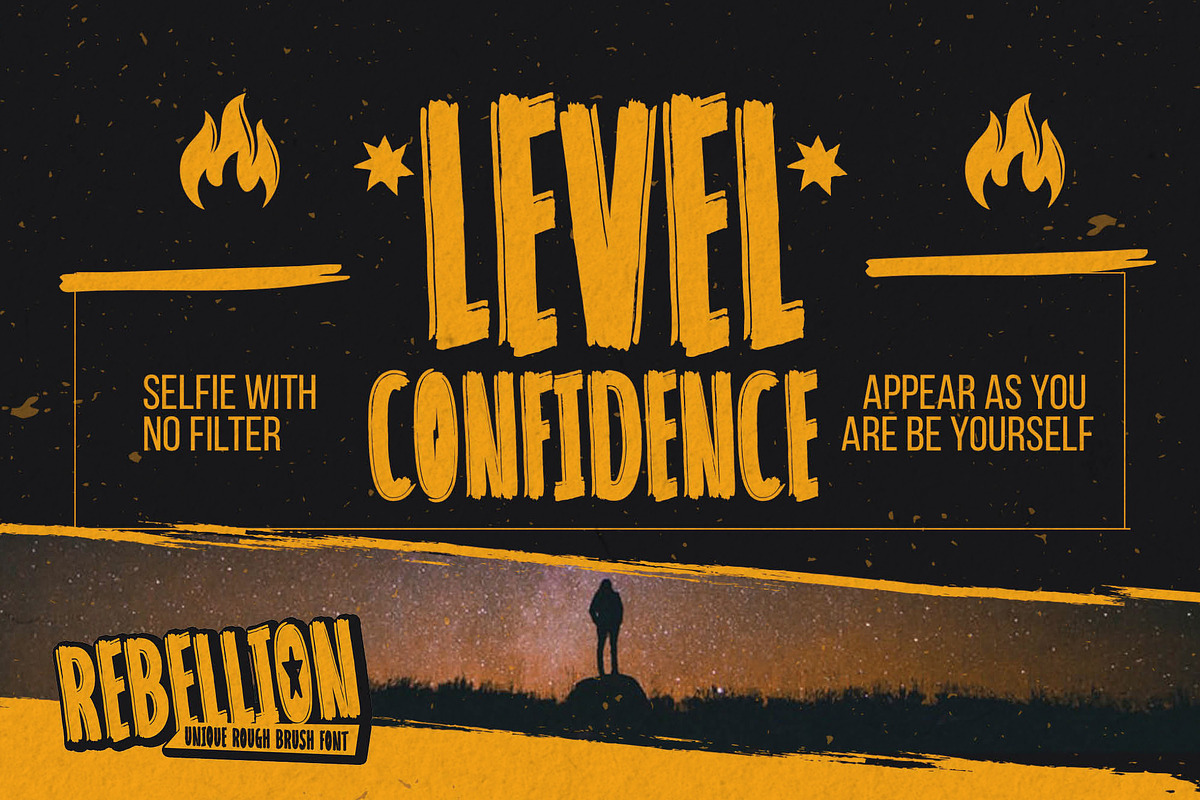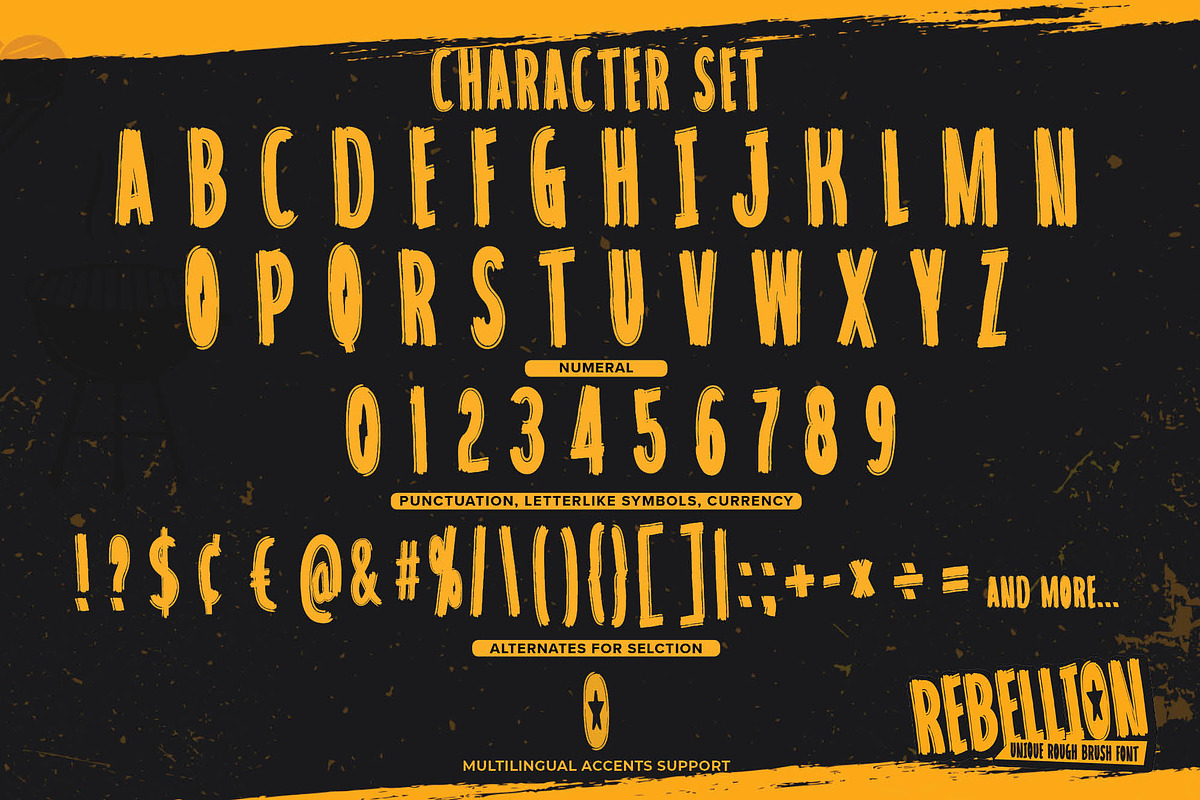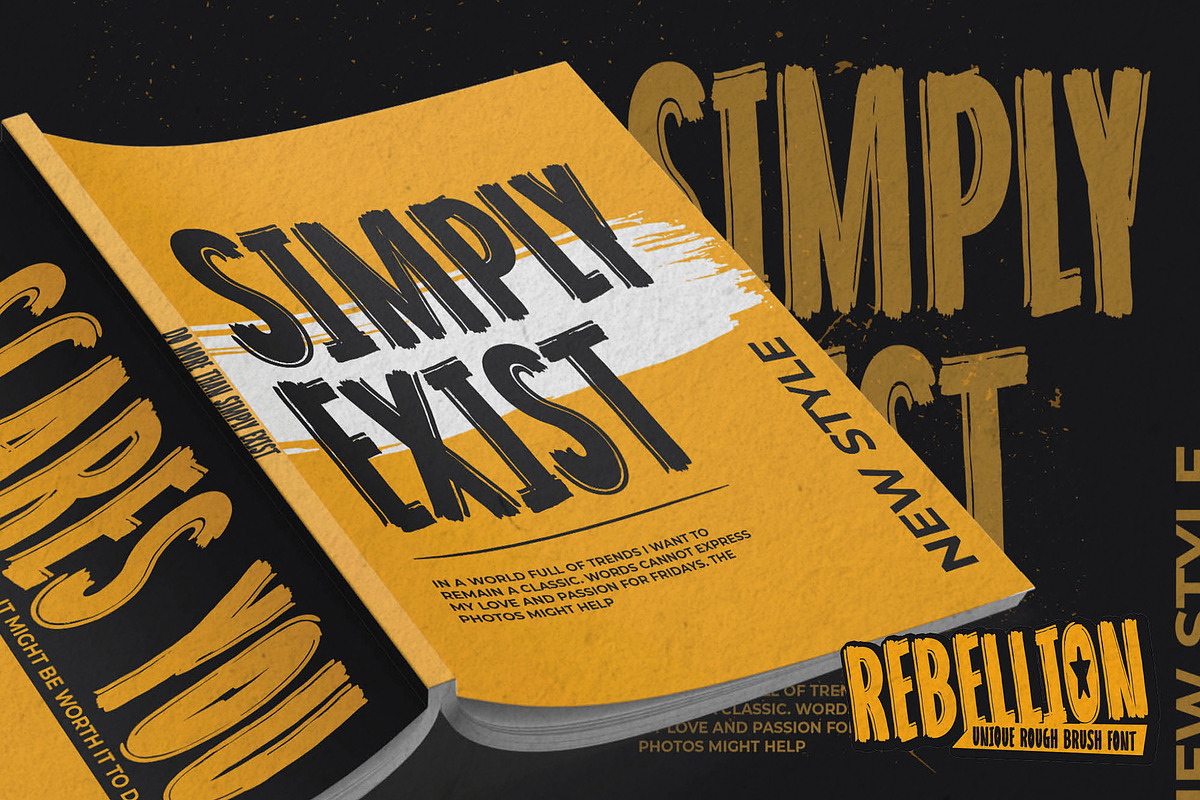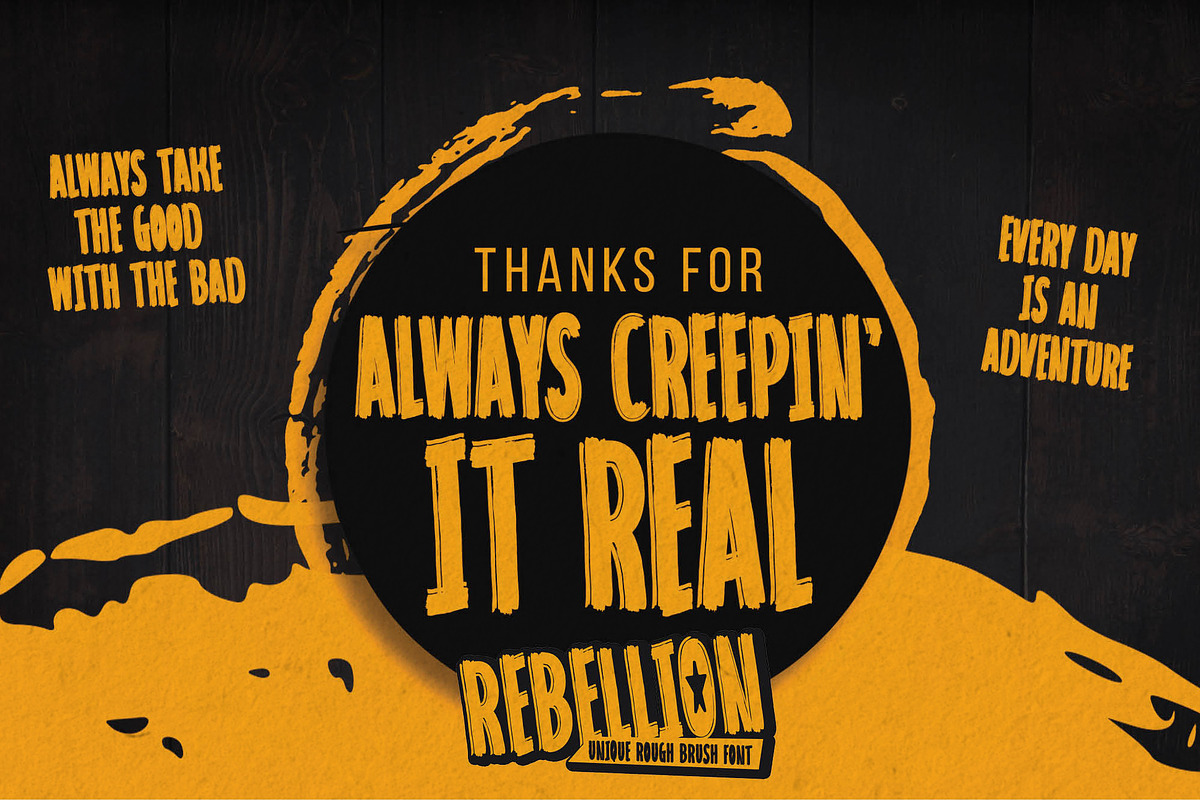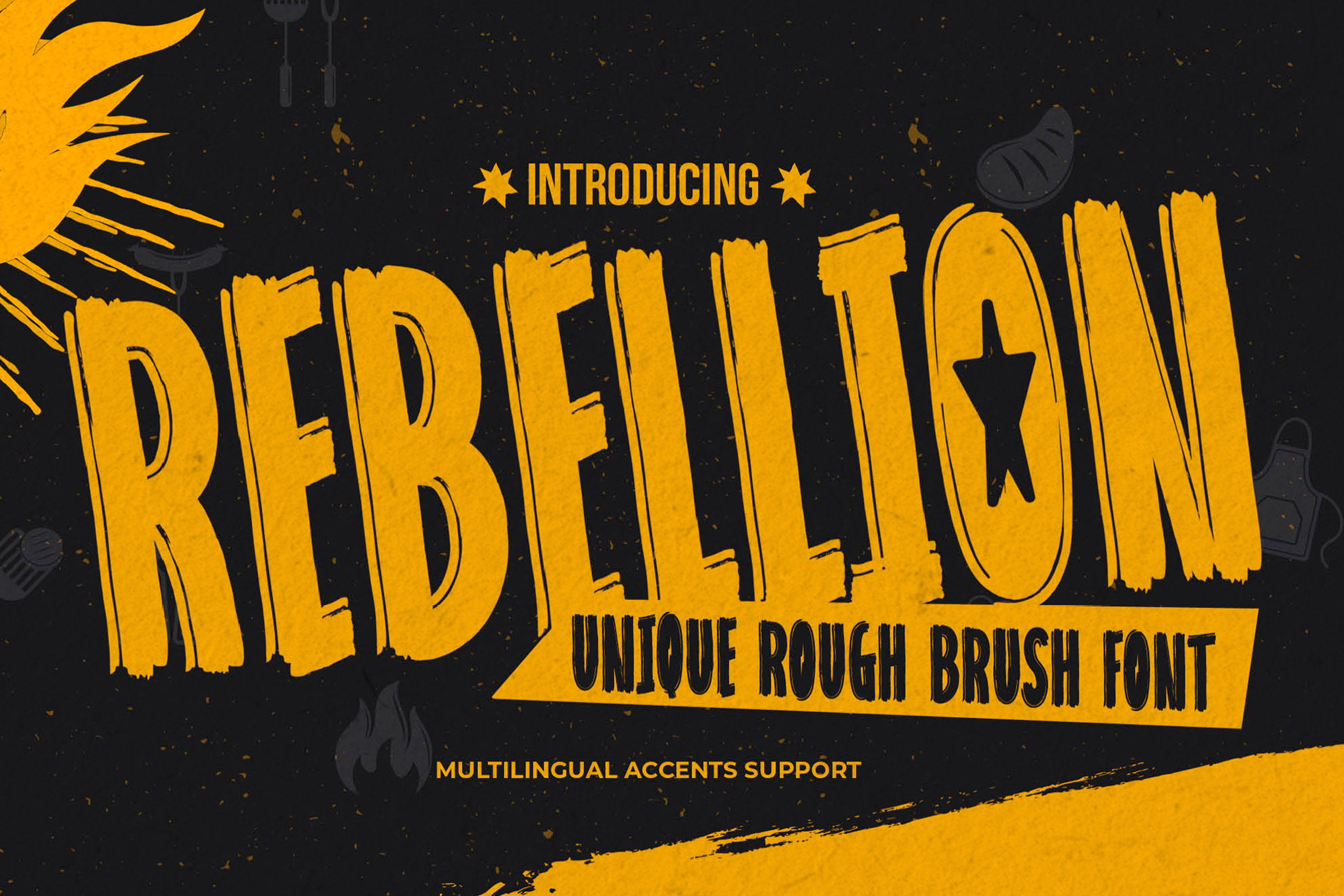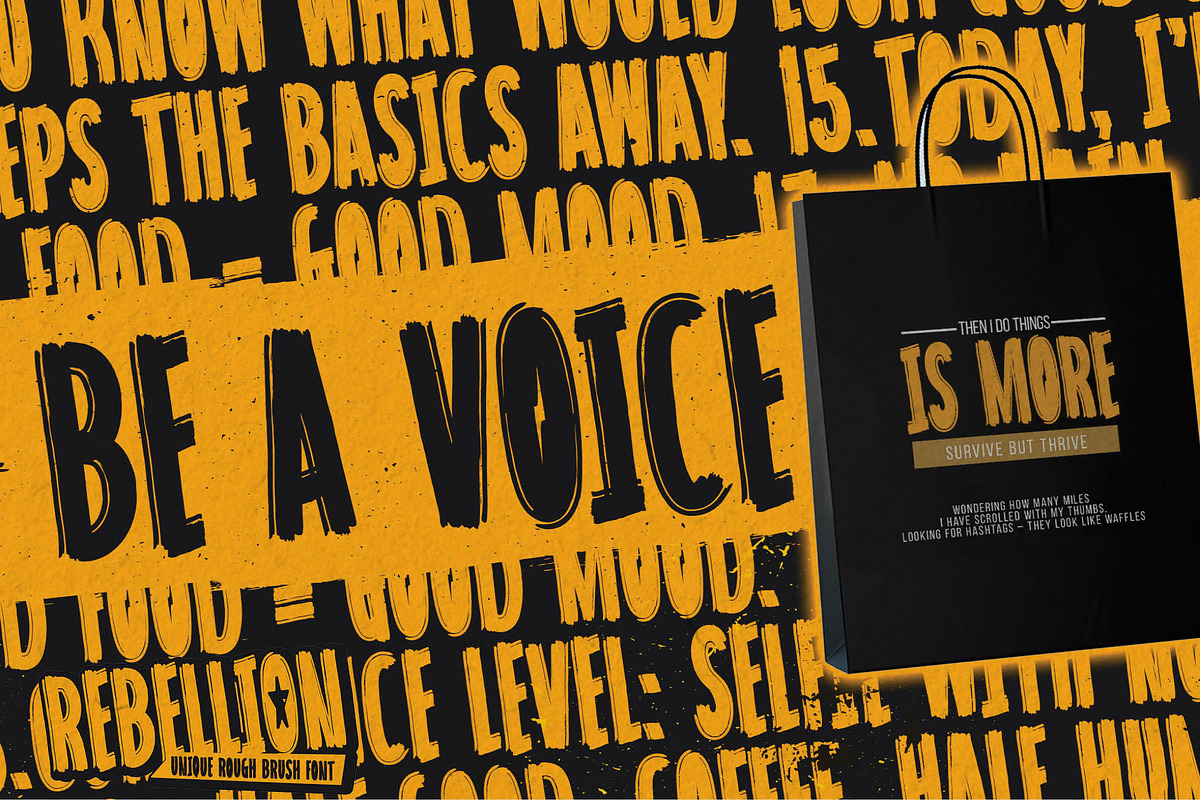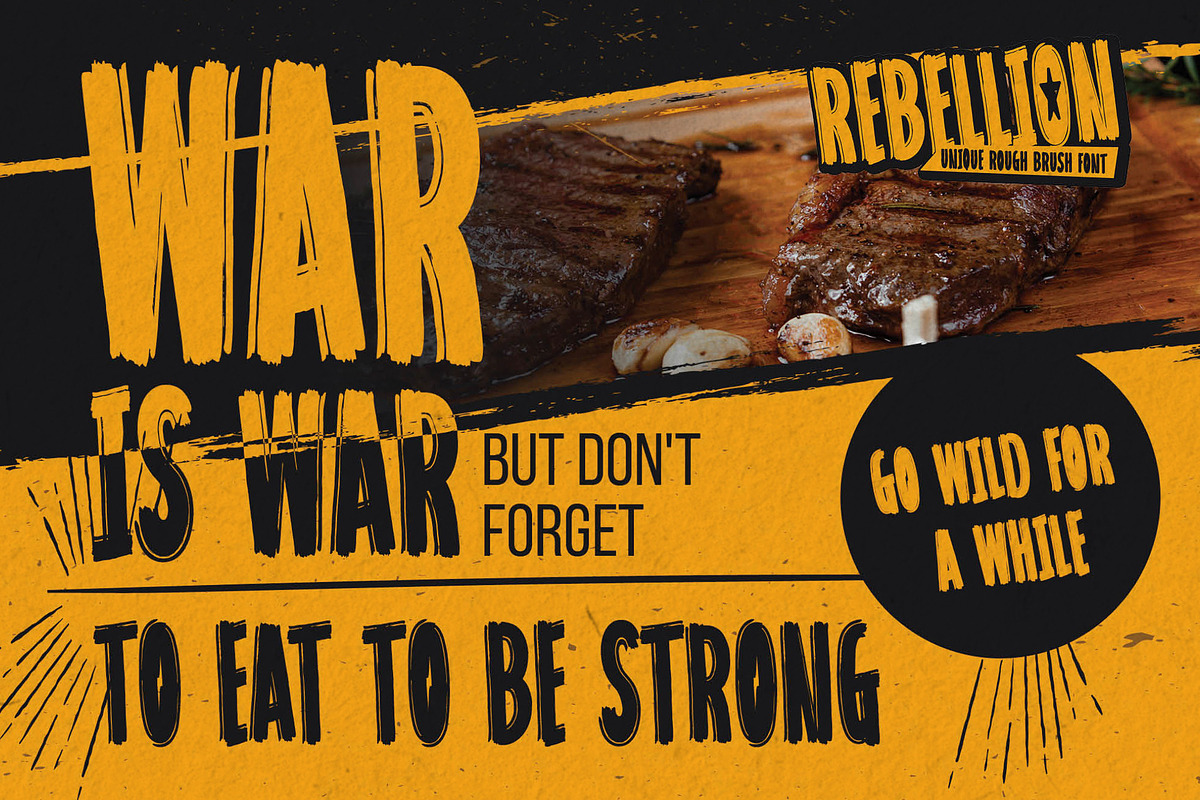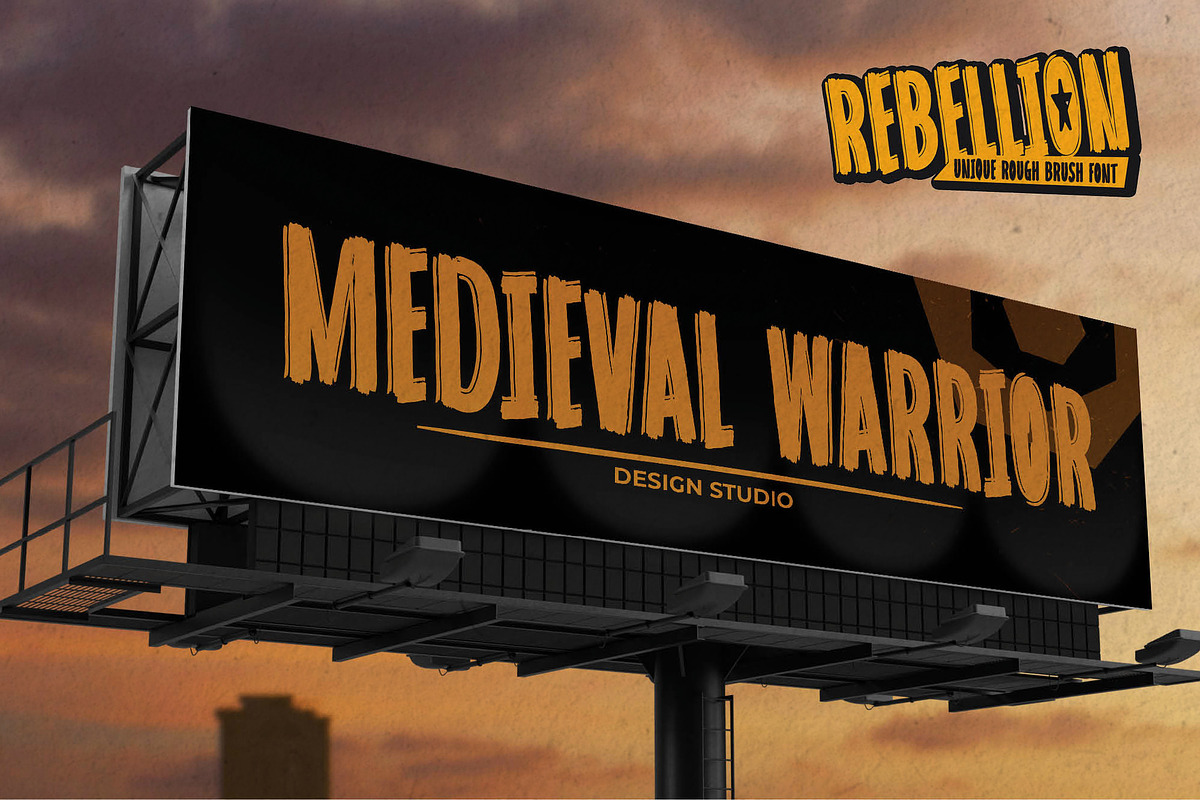
REBELLION - Unique Rough Brush Font
Here comes a New font,Introducing REBELLION It's Unique Rough Brush Font is a Strong Style and classy style, this font is great for your creative projects such as watermark on photography, and perfect for logos & branding, invitation,advertisements,product designs, stationery, wedding designs,label ,product packaging, special events or anything that need handwritting taste.
REBELLION a natural Hand Drawn feel. This handmade font will make your design has a beautiful natural touch for each details. It is perfect for any design project as Invitation,logo, book cover, craft or any design purposes,photos, photography overlays, signs, window art, scrapbooking, tags and so much more! That is has charming, authentic and relaxed characteristic more natural look to your text.